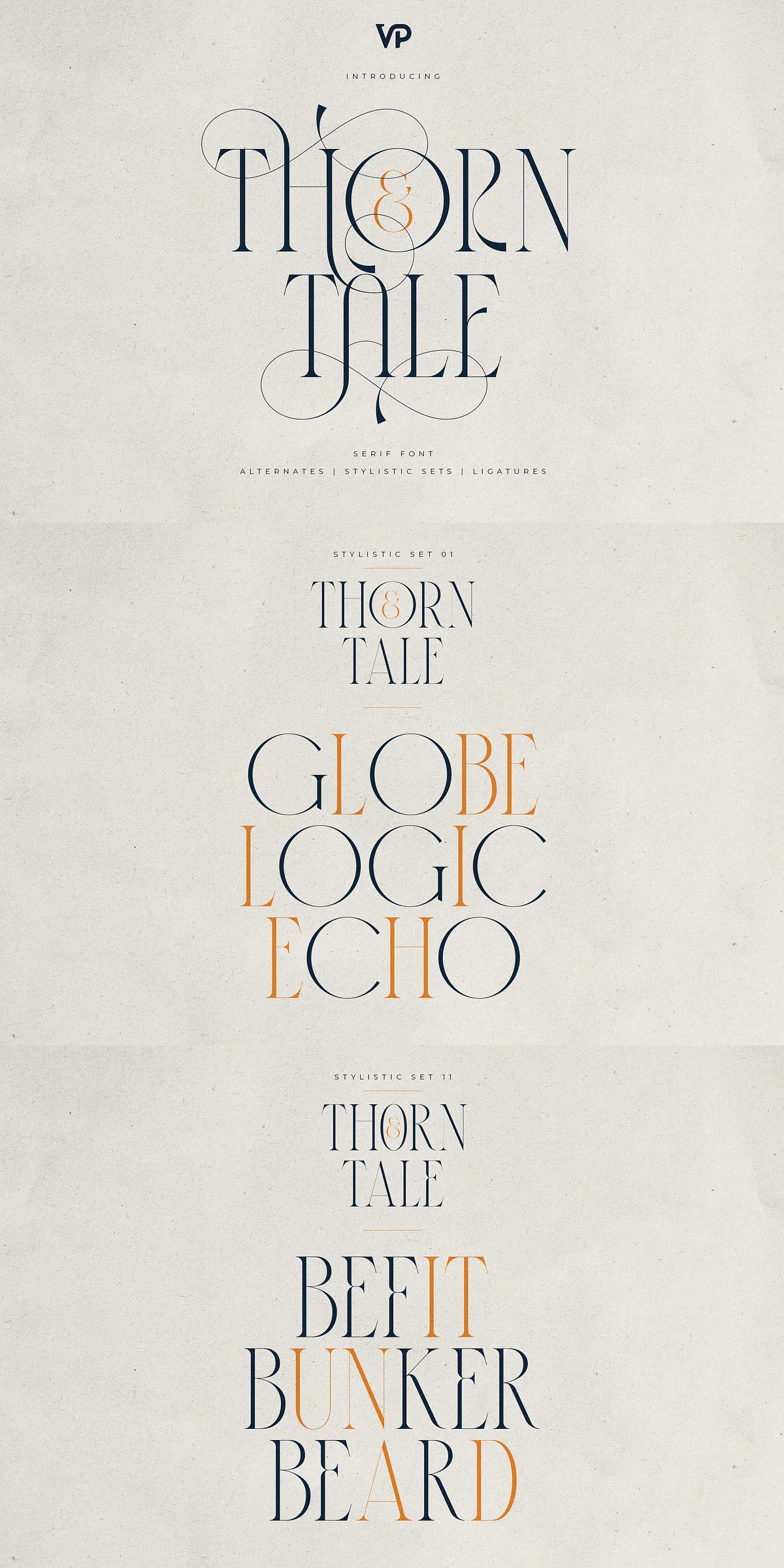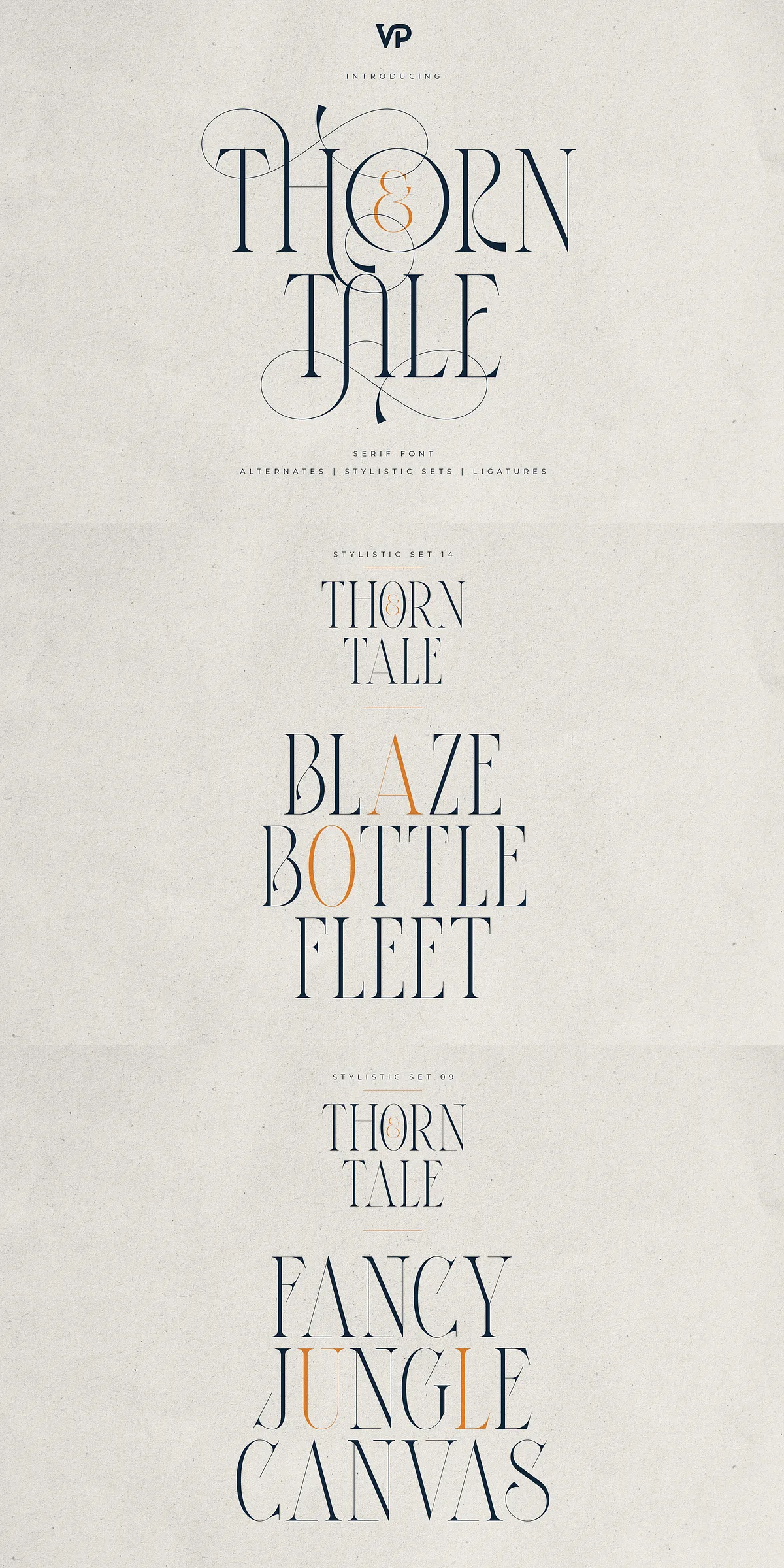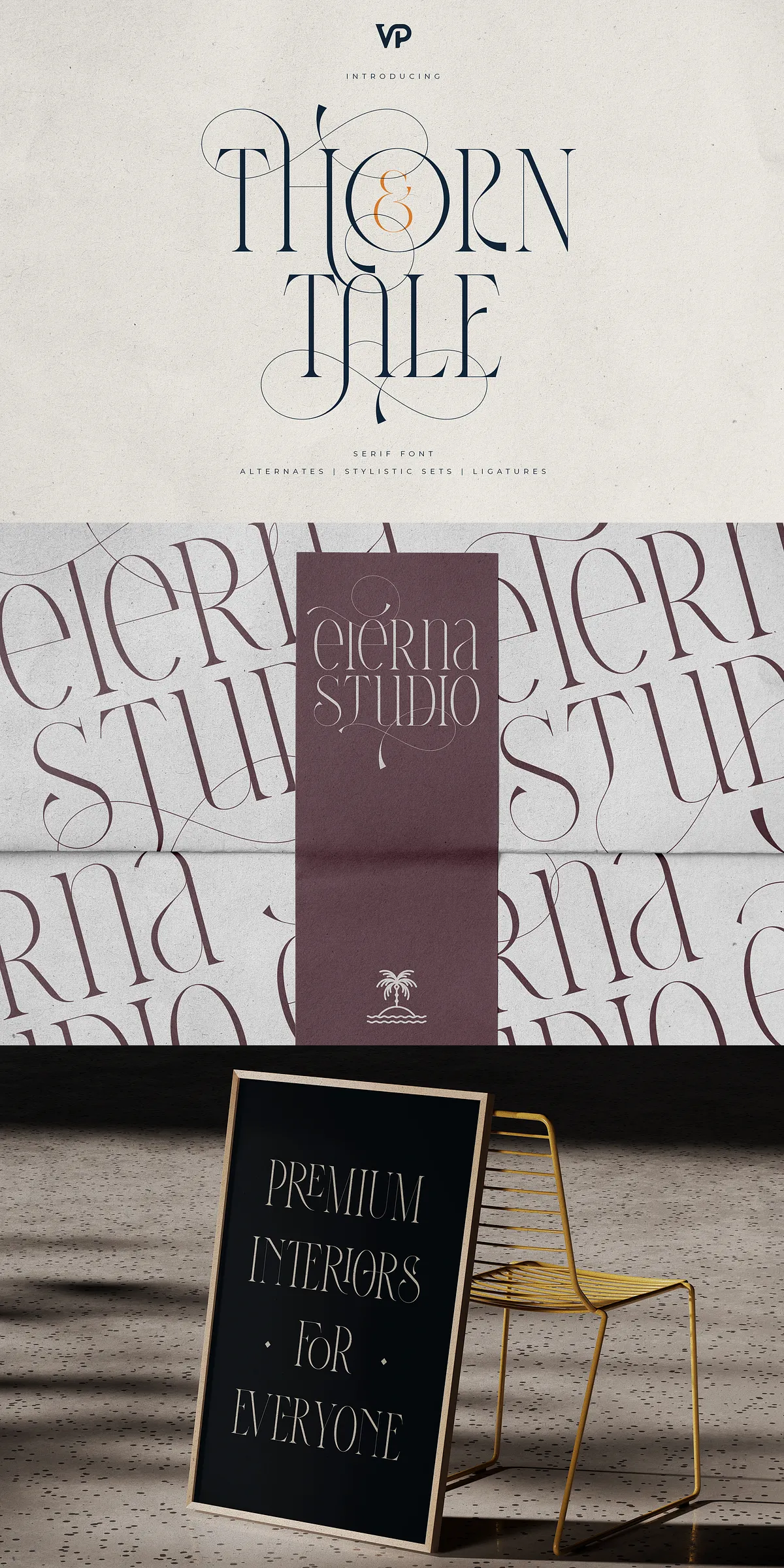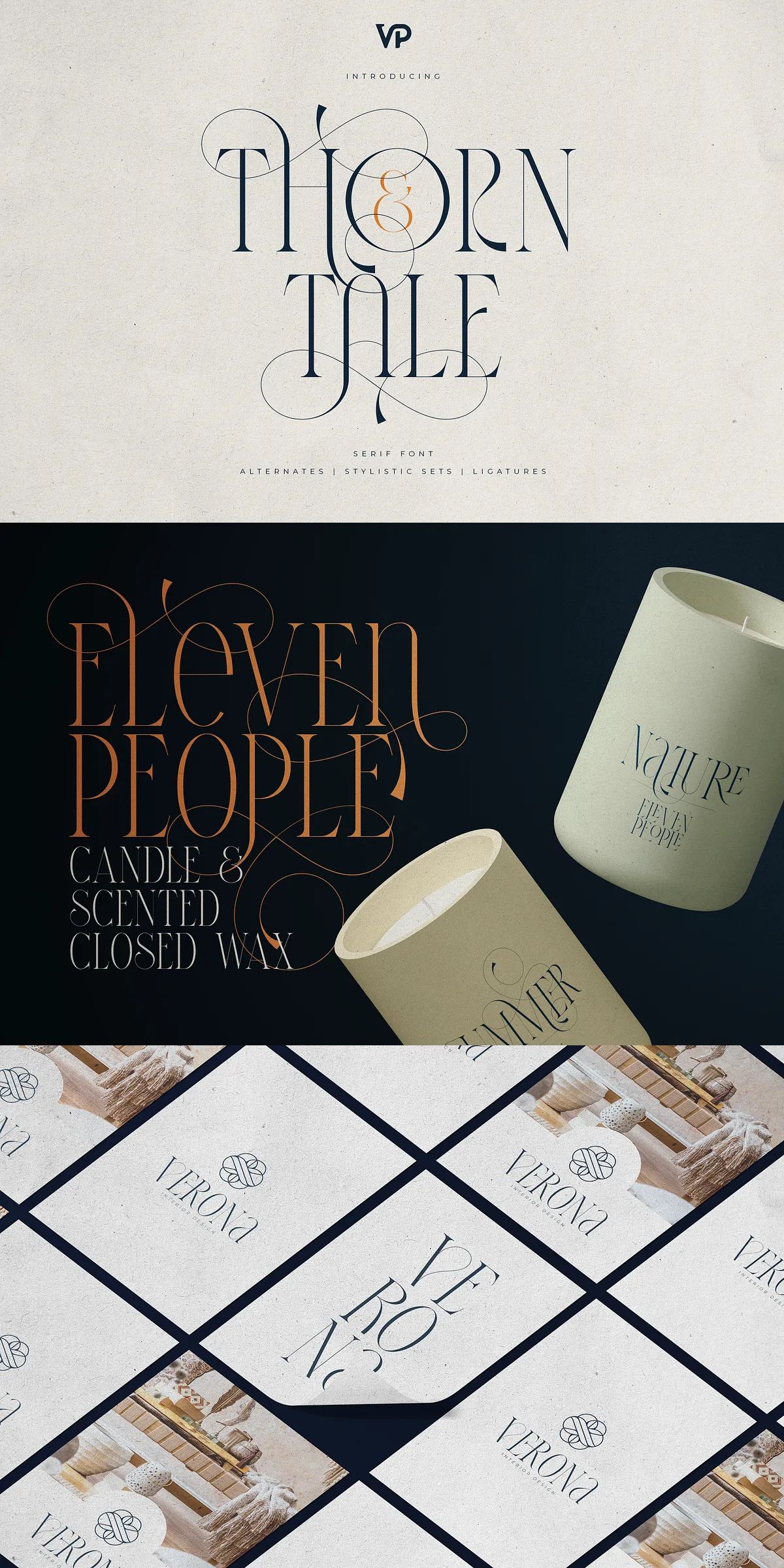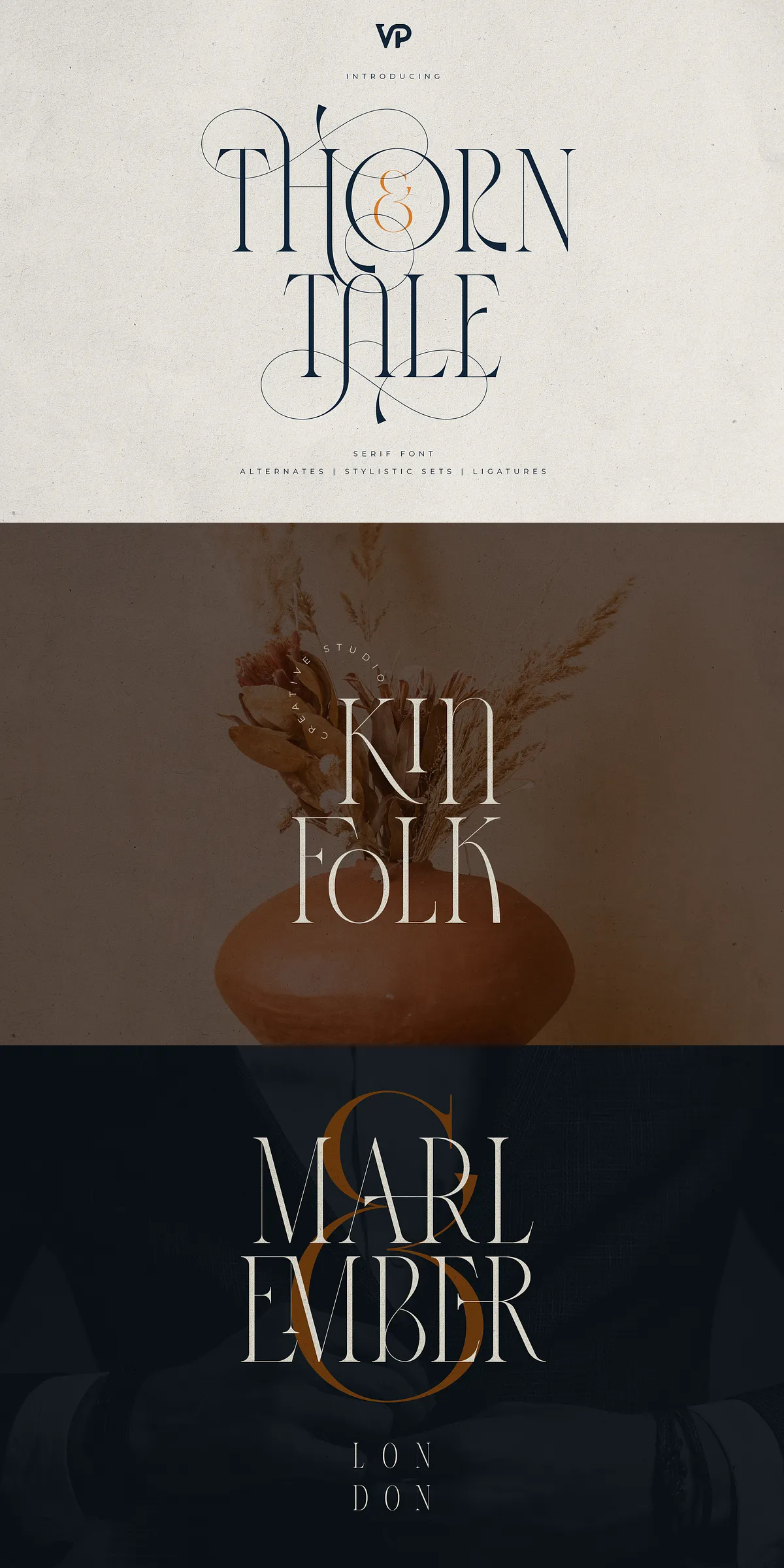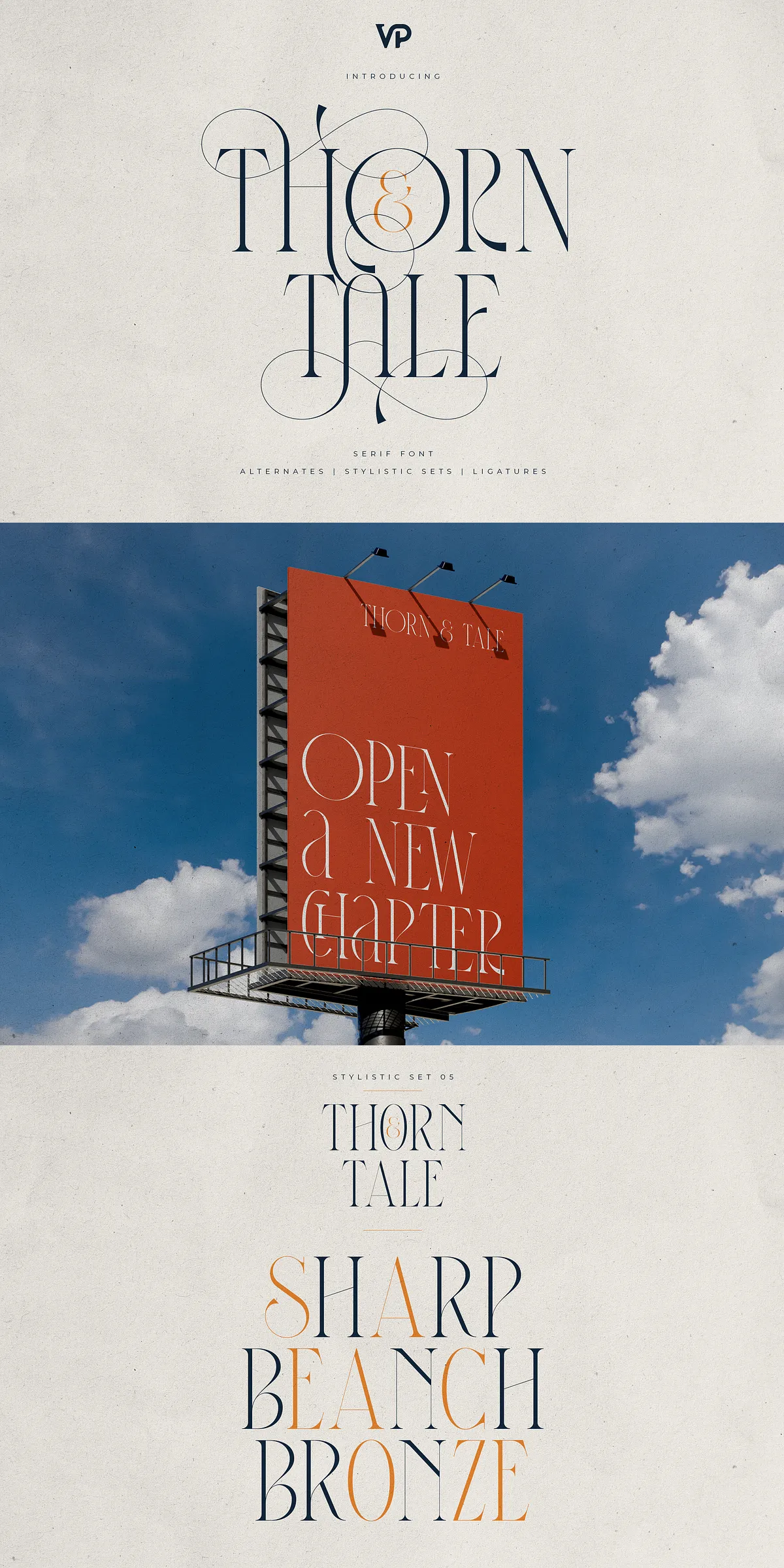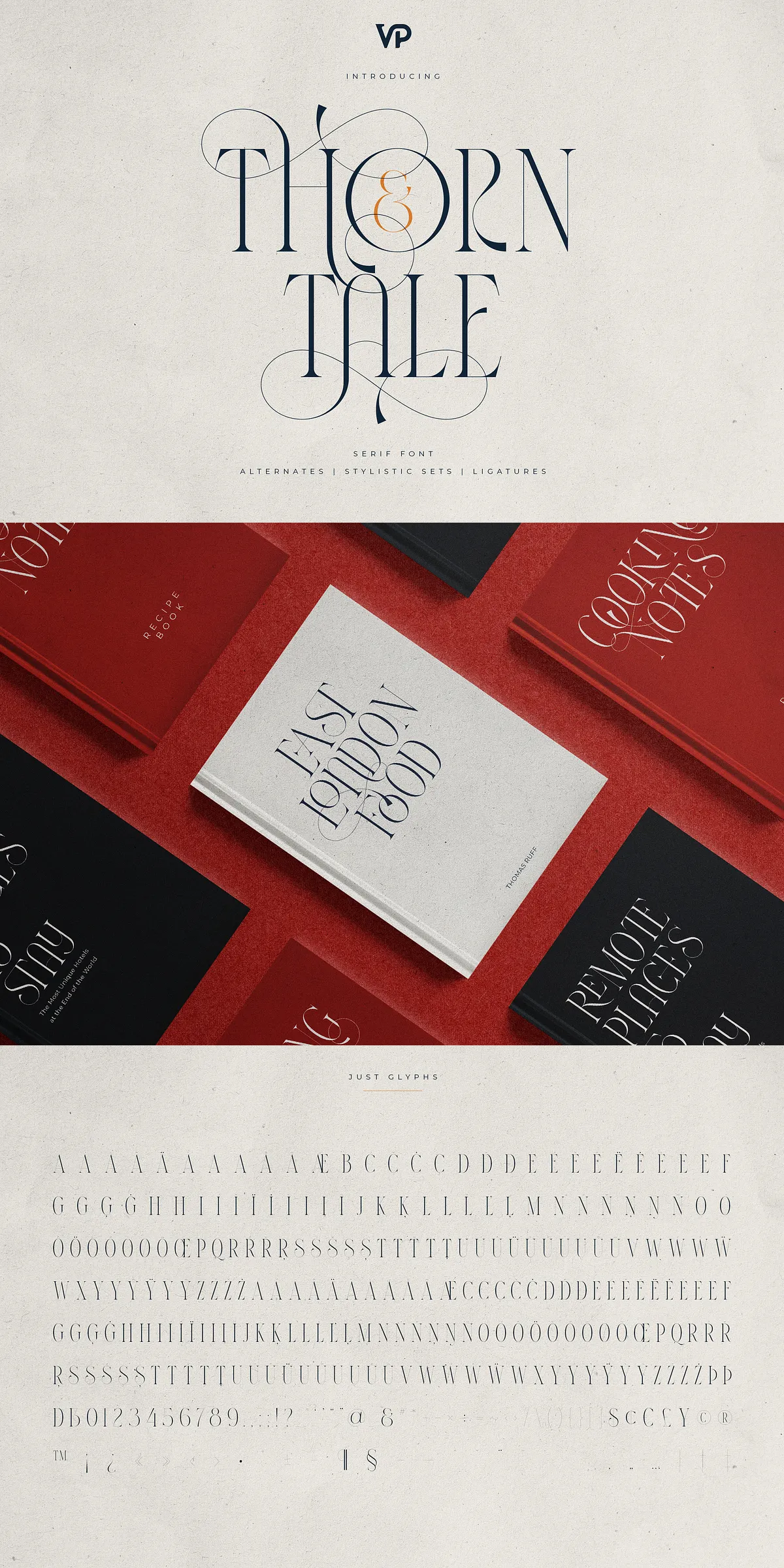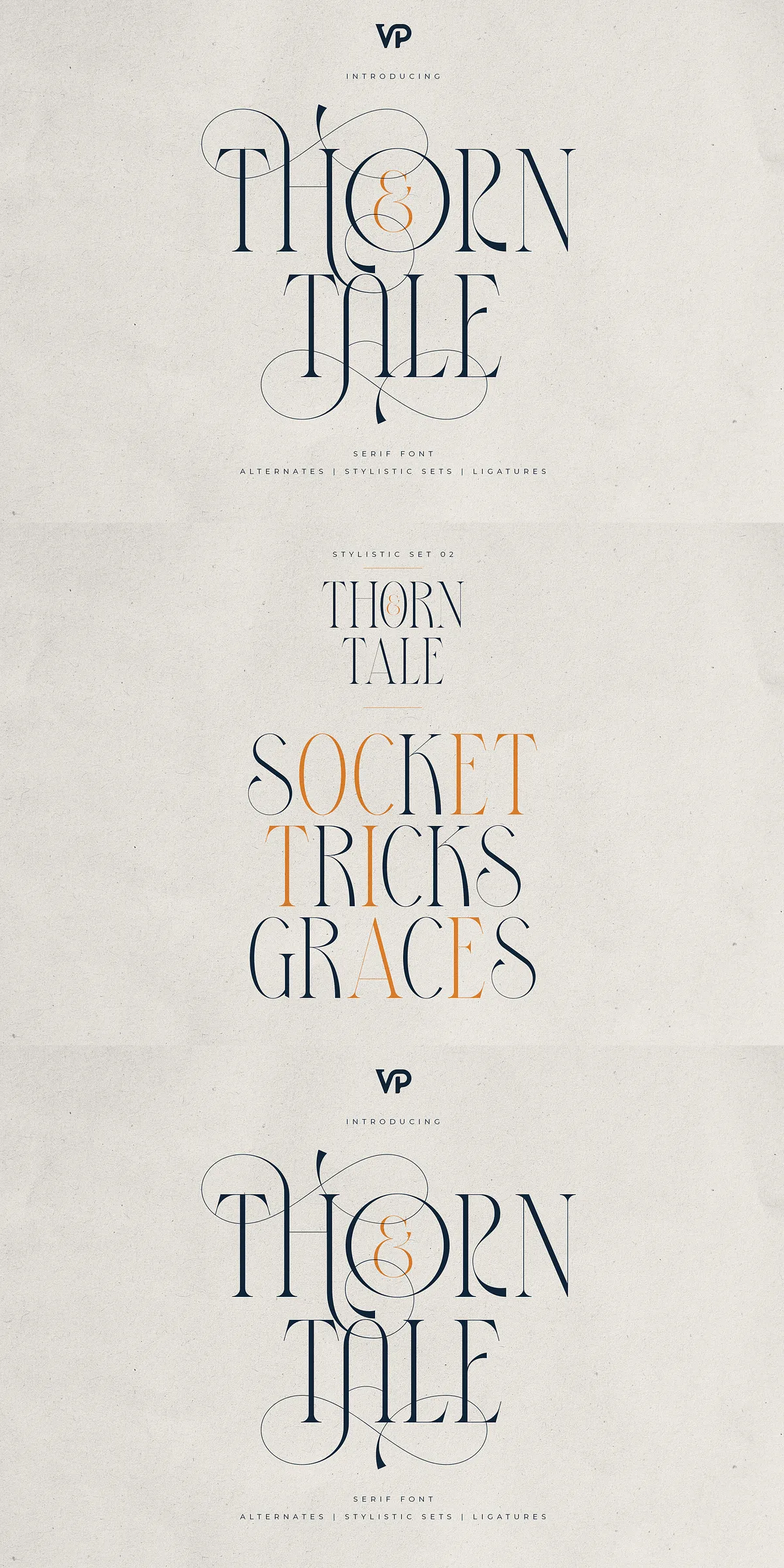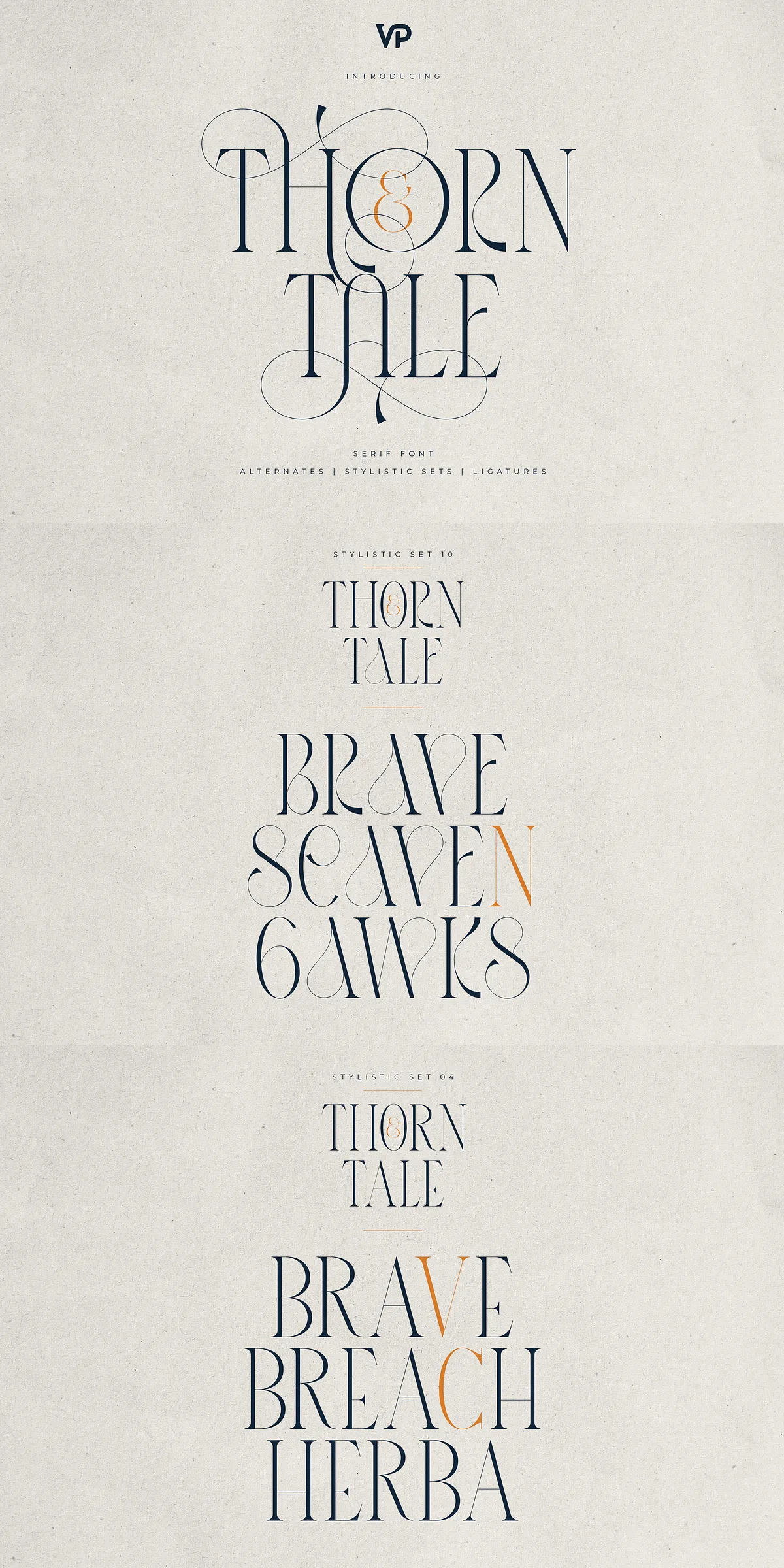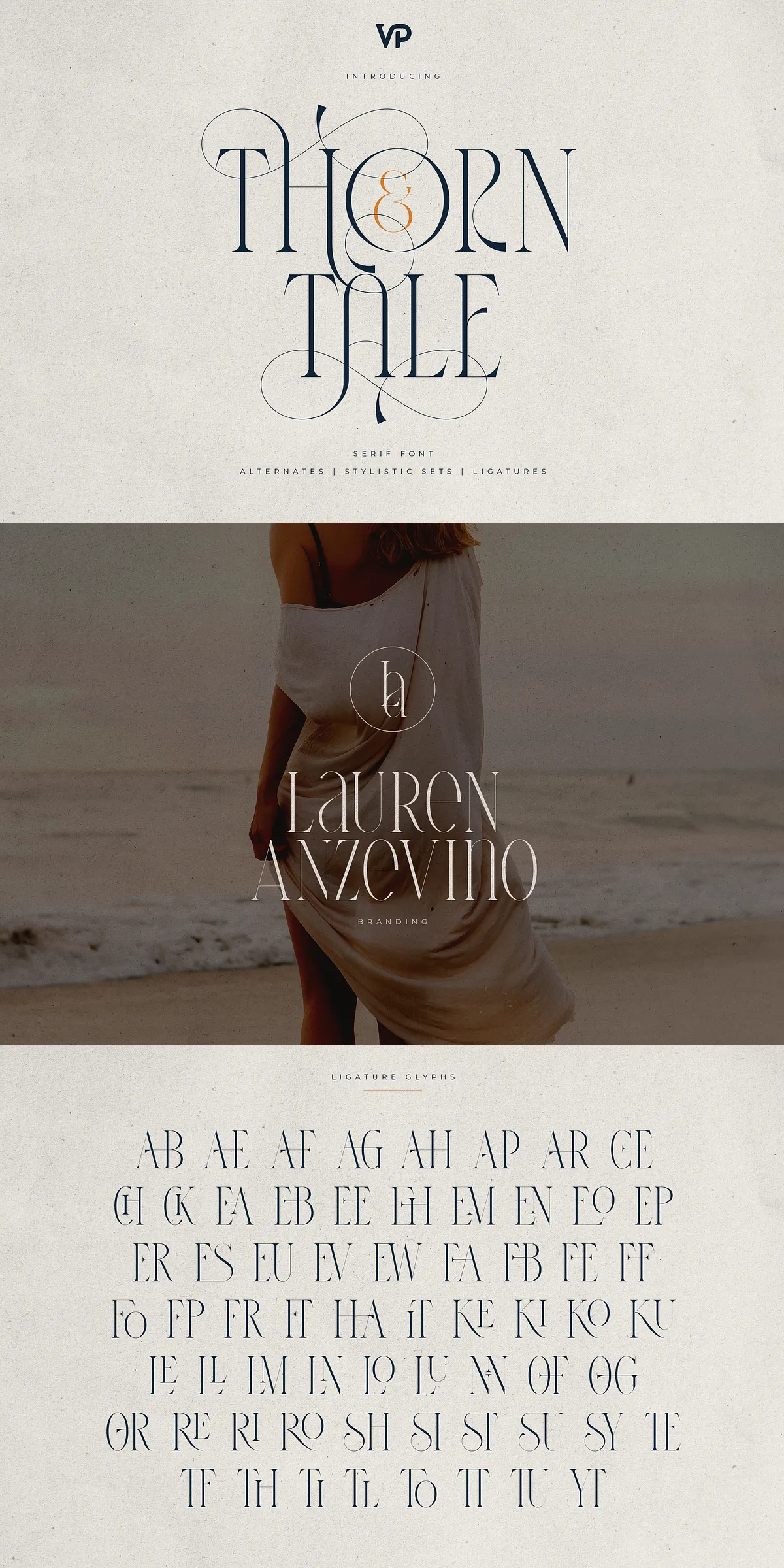
Thorn & Tale – A Refined Serif Font
Thorn & Tale is purpose-built to elevate brands that demand sophistication and visual drama. This high-contrast serif injects editorial authority and artisan charm into logos, magazine mastheads, book covers, and premium packaging. Designers will find Thorn & Tale actively shapes perception: it refines a product’s narrative, clarifies brand hierarchy, and highlights headlines with cinematic presence. Use it wherever words must feel beautiful and designs must make decisive, memorable statements.
Distinctive Features and Creative Flexibility That Impress
Extensive Alternates, Ligatures, and Stylistic Controls
Thorn & Tale delivers over 250 alternates and ligatures and includes 16 stylistic sets so you can customize letterforms quickly and consistently. Switch between delicate swashes and bold uppercase ligatures to adapt tone across projects — from soft, romantic invitations to confident, fashion-forward logotypes. These features empower rapid iteration and let you craft bespoke typographic marks without laborious manual drawing.
Elegant High-Contrast Anatomy and Balanced Proportions
Every glyph balances long, graceful serifs with refined contrast to read beautifully at display sizes. The careful stroke modulation and measured curves maintain legibility while providing dramatic flair. Thorn & Tale’s proportion system supports tight headlines and open, airy layouts alike; it performs equally well in luxurious close-ups and in editorial spreads that require structured rhythm.
Comprehensive Language Support and Accessibility
Thorn & Tale supports 87 Latin-based languages to ensure global compatibility across Western and many African and Eurasian markets. The font includes accented glyphs and extended Latin characters so your messaging stays consistent and high-quality in localized campaigns and multilingual publications.
What You Receive When You Choose Thorn & Tale Typeface
• Over 250 alternates and ligatures for expressive typography
• 16 stylistic sets to vary tone and craft unique wordmarks
• Full Latin-based language coverage across 87 languages
Recommended Uses and Practical Implementation Strategies
Luxury Branding, Packaging, and Logo Systems
Apply Thorn & Tale to premium product lines, label work, and identity systems to immediately raise perceived value. Combine bold uppercase ligatures for logotypes with restrained lowercase for subheadings to create balanced, professional identities.
Editorial Layouts and Book Covers
Use Thorn & Tale for striking cover headlines and section openings. The typeface holds presence in large display sizes and pairs well with neutral serifs or clean sans-serifs for body text. Adjust tracking and size to allow the fine strokes to breathe and avoid ink fill loss on textured stocks.
Invitations, Stationery, and Event Collateral
The font’s swashes and alternates lend an elegant character for wedding suites and upscale event materials. Use stylistic sets for unique flourish while maintaining readability across envelopes, place cards, and printed programs.
Thorn & Tale supports a broad set of Latin-based languages including Afrikaans, Albanian, Basque, Czech, Danish, Dutch, English, Estonian, Finnish, French, German, Hungarian, Indonesian, Italian, Latvian, Lithuanian, Norwegian (Bokmål and Nynorsk), Polish, Portuguese, Romanian, Slovak, Spanish, Swedish, Turkish, Welsh, Zulu and many others to cover 87 languages in total. Confirm font licensing for each distribution channel and test rendering on target platforms.